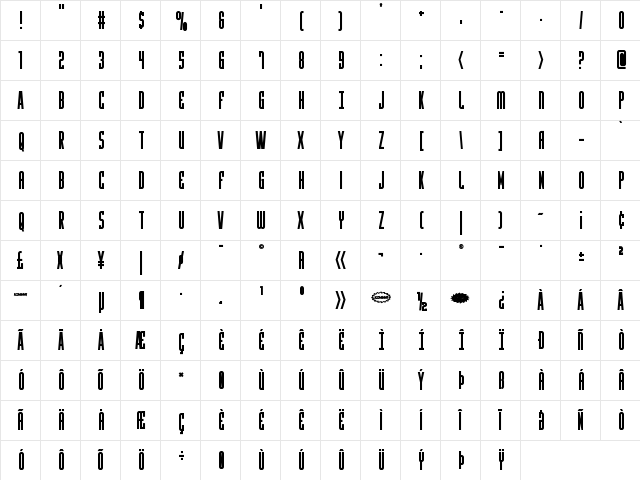
Y-Files Bold Bold
Design Context for Y-Files Bold Typeface
Y-Files Bold offers clean, dependable letterforms without strong stylistic allegiance, making it a practical choice for designers who need flexibility. Its bold stroke weight gives it real presence on the page.